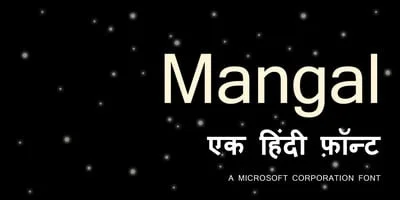
Mangal Font
Mangal Font is perfect for Indian restaurant branding, Bollywood movie promotions, Sanskrit text displays, Hindu temple signage, yoga studio materials, Ayurveda product packaging, Indian wedding invitations, cultural festival posters, meditation center graphics, and any project requiring authentic South Asian elegance with traditional Indian sophistication and spiritual cultural depth.
What makes Mangal Font exciting is its spiritual richness and authentic Indian heritage that embodies the profound wisdom of ancient Sanskrit traditions and vibrant South Asian culture. The typeface features graceful, Devanagari-inspired letterforms with traditional Indian calligraphic elements that capture the essence of sacred texts and the artistic beauty of Indian manuscripts. Its divine character design speaks to audiences who appreciate cultural authenticity, spiritual depth, and the timeless appeal of Indian philosophy, making it perfect for brands seeking to communicate genuine Indian heritage, mindful living, and the sacred harmony found in ancient Eastern wisdom and contemporary Indian lifestyle.
Mangal Font family includes regular, medium, and bold weights with complete character sets featuring uppercase and lowercase letters, Indian-inspired numerals, essential punctuation marks, and decorative Sanskrit elements. The typeface incorporates traditional Indian design principles and authentic calligraphic techniques that enhance its cultural accuracy while maintaining excellent readability across modern applications and multicultural design projects.
Whether you're creating Indian cultural event materials, designing wellness brand identity, or developing South Asian marketing campaigns, Mangal Font provides the perfect typographic foundation that honors Indian tradition and Sanskrit artistry. The font's spiritual appeal and cultural character make it particularly effective for yoga studios, Indian restaurants, and wellness practitioners. Its traditional aesthetics translate beautifully across temple signage, cultural publications, and digital platforms, ensuring your brand communicates the kind of authentic Indian spirit and cultural richness that resonates with those who appreciate South Asian heritage and spiritual wisdom.